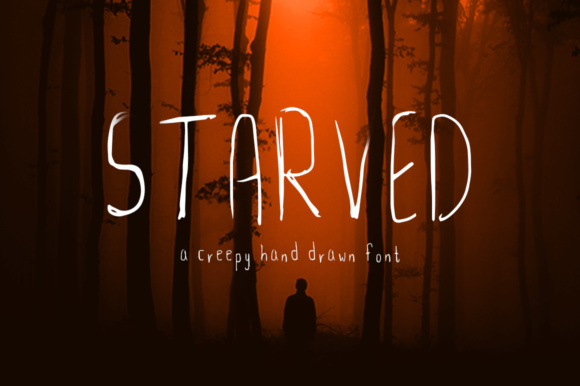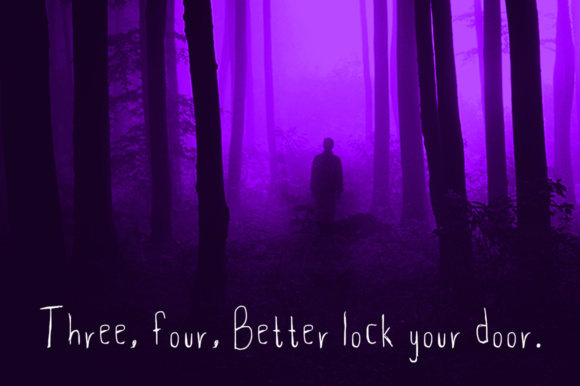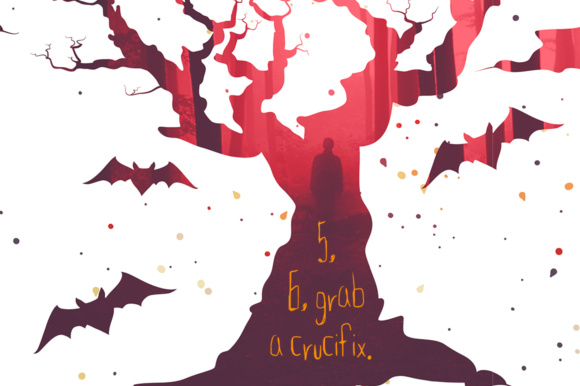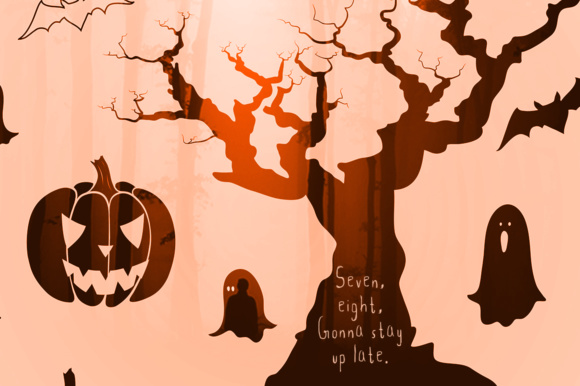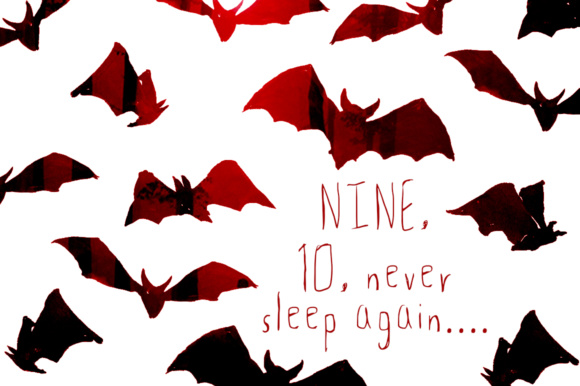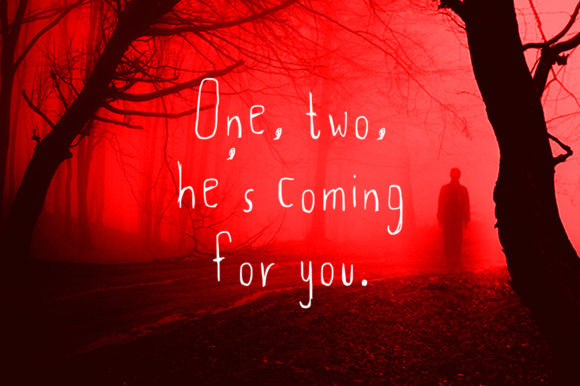
HomeScript FontsStarved Font Script Fonts Starved Font FacebookXPinterestWhatsApp Starved Font Poster 2 Starved Font Poster 3 Starved Font Poster 4 Starved Font Poster 5 Starved Font Poster 6 About Starved Font A little horror hand drawn font for your Halloween themed projects! DOWNLOAD ON CREATIVE FABRICAThis font is sold and delivered by Creative Fabrica. Font Canyon may earn a commission if you buy through this link. People also explored Fly High Font Landyon Font Linguine Patriast Font She Amasya Font Winter Blues Font Lavineta Eisley Font Years Font Opaline Font 313 0 TagsStarved Font Previous articleZenith Script FontNext articleIm Spiegelland Font LEAVE A REPLY Cancel reply Comment: Please enter your comment! Name:* Please enter your name here Email:* You have entered an incorrect email address! Please enter your email address here Website: Save my name, email, and website in this browser for the next time I comment. Personal Use Free I Am Exceptional Personal Use Free Read more about this font Bright Dreams Personal Use Free Read more about this font Husky Stash Personal Use Free Read more about this font Theobald Personal Use Free Read more about this font BLOG The 10 Best Handwriting Fonts to Add Personality to Your Designs 10 of the Best Handwriting Fonts for Adding Personality to Your Designs There will undoubtedly be no other better choice than handwriting fonts to give... Free vs Paid Fonts: Why Investing in Premium Fonts Is Worth It Free Fonts Risk: Why Free Fonts Can Be Dangerous for Designers 5 Fonts That Will Dominate Design Trends in 2026